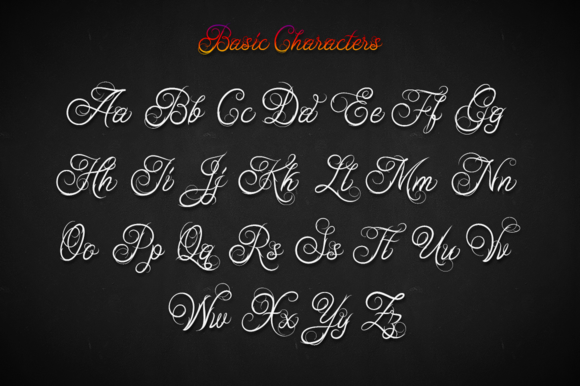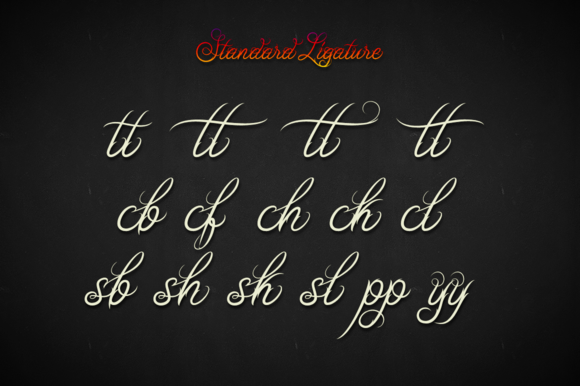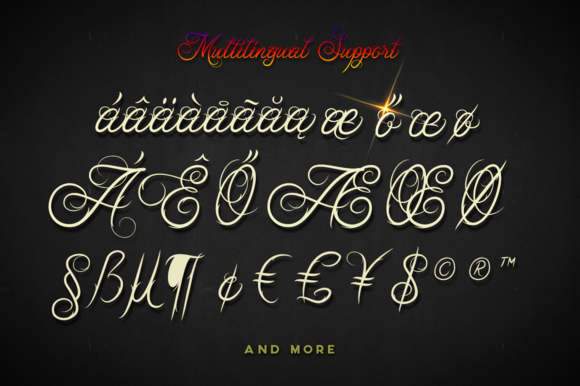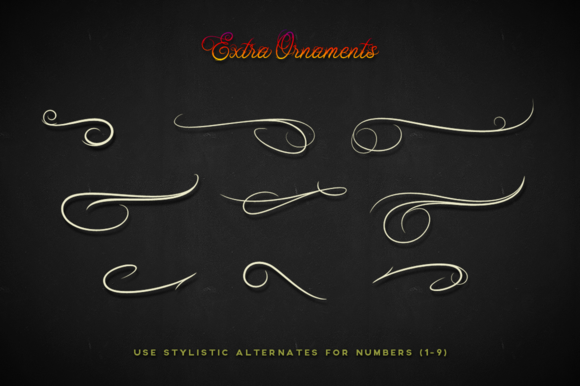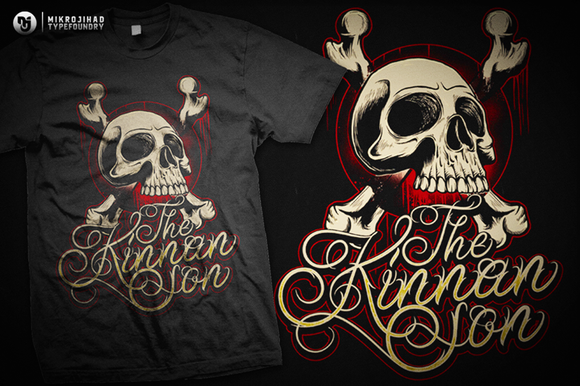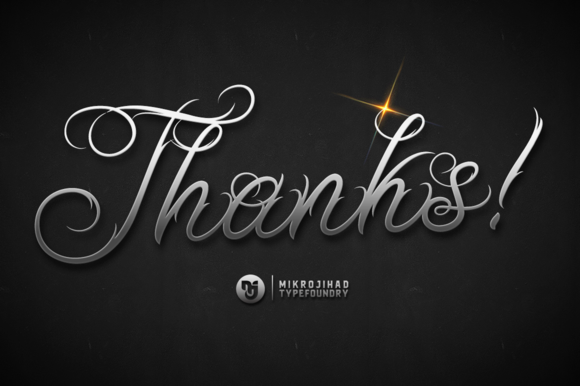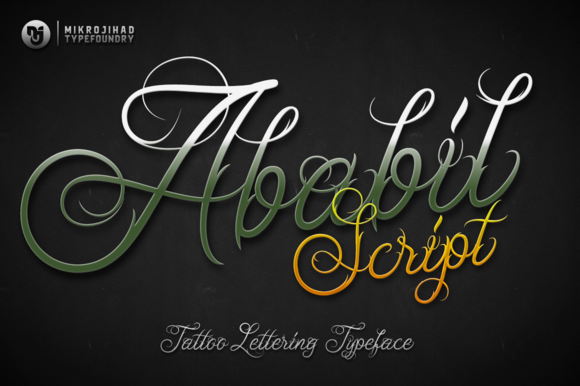
Ababil Script Font: A Tattoo-Inspired Typeface for Creative Designs
Are you a designer or crafter looking for a unique and stylish font to elevate your creative projects? Look no further than the Ababil Script Font, a beautiful typeface inspired by tattoos. With its bold and expressive letters, Ababil Script is perfect for a wide range of applications, from headings and logos to invitations, t-shirt designs, and more.
What is Ababil Script Font?
Ababil Script Font is a modern script font that draws inspiration from the art of tattooing. Its intricate and curved lines, reminiscent of tattoo designs, give it a distinctive and eye-catching look. The font is designed to be highly legible, making it suitable for use in various contexts, from digital designs to print materials.
Features of Ababil Script Font
- Unique and stylish design: Ababil Script Font boasts a one-of-a-kind design that is sure to make your creations stand out.
- Tattoo-inspired aesthetic: The font’s tattoo-inspired look adds a touch of edginess and sophistication to any design.
- Highly legible: Despite its intricate design, Ababil Script Font is highly legible, making it perfect for use in a variety of applications.
- Versatile: The font can be used for headings, logos, invitations, t-shirt designs, greeting cards, posters, labels, book covers, brochures, and much more.
Uses of Ababil Script Font
Ababil Script Font is an incredibly versatile typeface that can be used for a wide range of creative projects. Here are some ideas to get you started:
- Headings and titles: Use Ababil Script Font to add a touch of elegance and sophistication to your headings and titles.
- Logo design: Create a unique and memorable logo for your brand or business using Ababil Script Font.
- Invitations and greeting cards: Add a personal touch to your invitations and greeting cards with the beautiful and expressive letters of Ababil Script Font.
- T-shirt designs: Create eye-catching t-shirt designs that are sure to turn heads with Ababil Script Font.
- Posters and flyers: Use Ababil Script Font to create bold and attention-grabbing posters and flyers.
- Book covers and brochures: Add a touch of style and sophistication to your book covers and brochures with Ababil Script Font.
Why Choose Ababil Script Font?
With so many fonts available, why choose Ababil Script Font? Here are just a few reasons:
- Unique design: Ababil Script Font offers a unique and stylish design that is sure to make your creations stand out.
- High-quality: The font is designed to be high-quality and highly legible, making it perfect for use in a variety of applications.
- Versatile: Ababil Script Font can be used for a wide range of creative projects, from digital designs to print materials.
- Easily readable: Despite its intricate design, Ababil Script Font is easily readable, making it perfect for use in body text and other applications where readability is key.
In conclusion, Ababil Script Font is a beautiful and versatile typeface that is perfect for designers and crafters looking to add a touch of style and sophistication to their creative projects. With its unique and stylish design, high-quality construction, and versatility, Ababil Script Font is sure to become a go-to font in your collection.
Tips and Tricks for Using Ababil Script Font
Here are a few tips and tricks to help you get the most out of Ababil Script Font:
- Experiment with different sizes and colors: Ababil Script Font looks great in a variety of sizes and colors, so don’t be afraid to experiment and find the perfect combination for your design.
- Pair with other fonts: Ababil Script Font pairs well with a variety of other fonts, so try pairing it with some of your favorite fonts to create a unique and interesting design.
- Use it sparingly: While Ababil Script Font is beautiful and eye-catching, it can be overwhelming if used too much. Use it sparingly to add a touch of elegance and sophistication to your design.